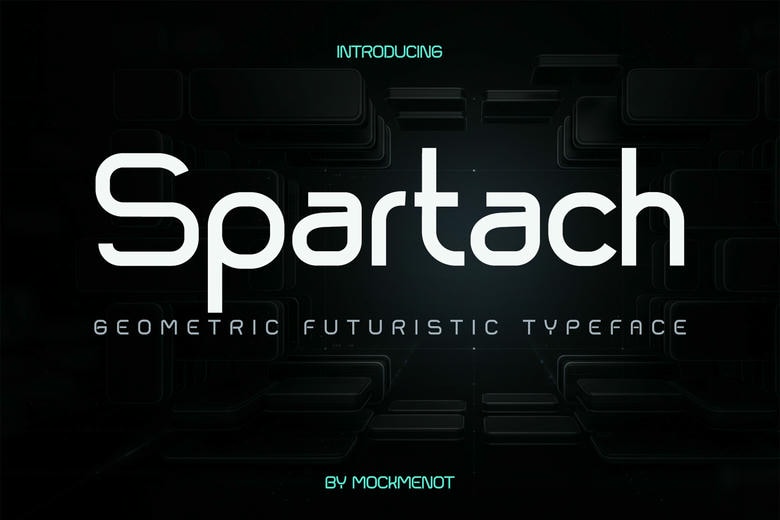
Spartach Font
Spartach is a modern geometric typeface made for technology branding, digital products, startups, gaming, UI design, and other creative visual identities. Spartach has clean monoline strokes, rounded geometric shapes, and a sleek, futuristic look. It offers a unique mix of readability and modern style.
The font family comes in 8 versatile styles, giving you flexibility for headlines, logos, website hero sections, product packaging, posters, social media graphics, and tech branding projects.
Spartach Sans Serif Font Family